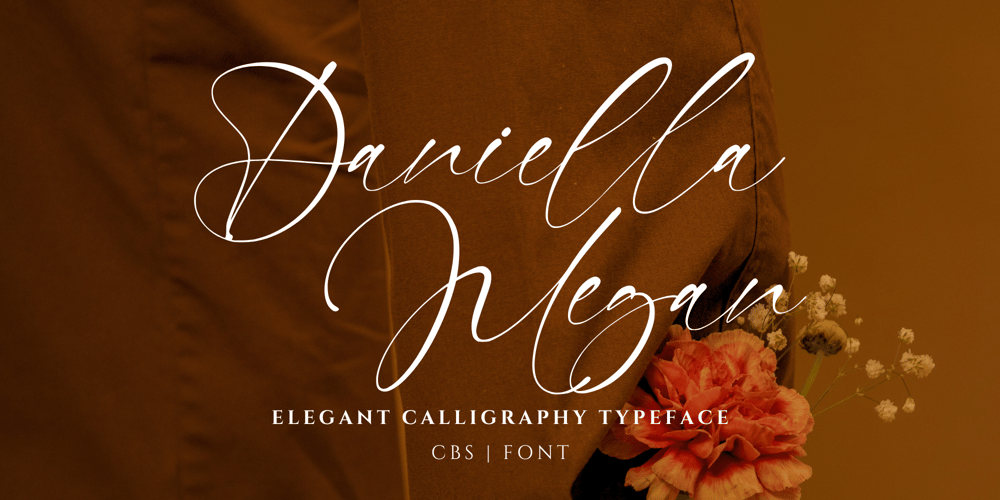
Daniella Megan Font Family was designed by Irpan Maulana and published by Create Big Supply. Daniella Megan contains 1 styles and family package options. Discover Daniella Megan, a captivating modern signature handwriting font that effortlessly combines elegance with a contemporary twist. This exquisite font is designed to bring a touch of sophistication and uniqueness to your creative projects.With its seamless integration of uppercase and lowercase letterforms, Daniella Megan offers versatility and creative possibilities for various design applications. Whether you’re working on branding materials, logos, invitations, or any project that demands a modern and stylish look, Daniella Megan will make a lasting impression.Featuring an extensive range of numbers and punctuations, Daniella Megan ensures easy incorporation of numerical data into your designs without compromising on aesthetics. Additionally, its multilingual support enables effective communication across different languages and cultures, making it a versatile choice for global projects.Daniella Megan has equipped with PUA (Private Use Area) encoding, granting access to special characters, ligatures, and alternate letterforms. This empowers you to personalize and customize your typography, giving your designs a distinctive and handcrafted feel.